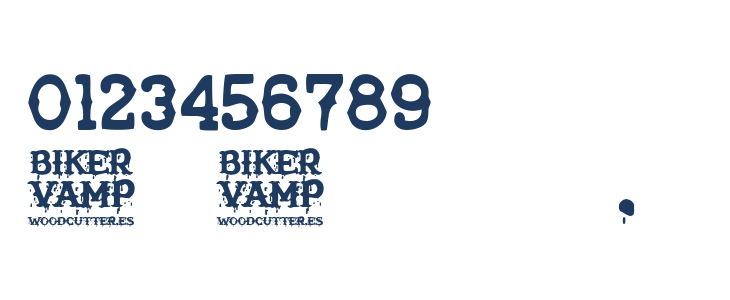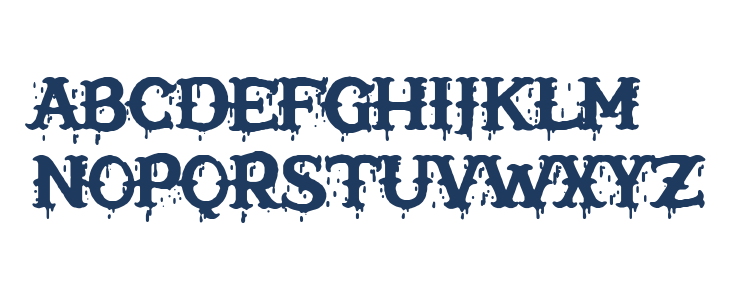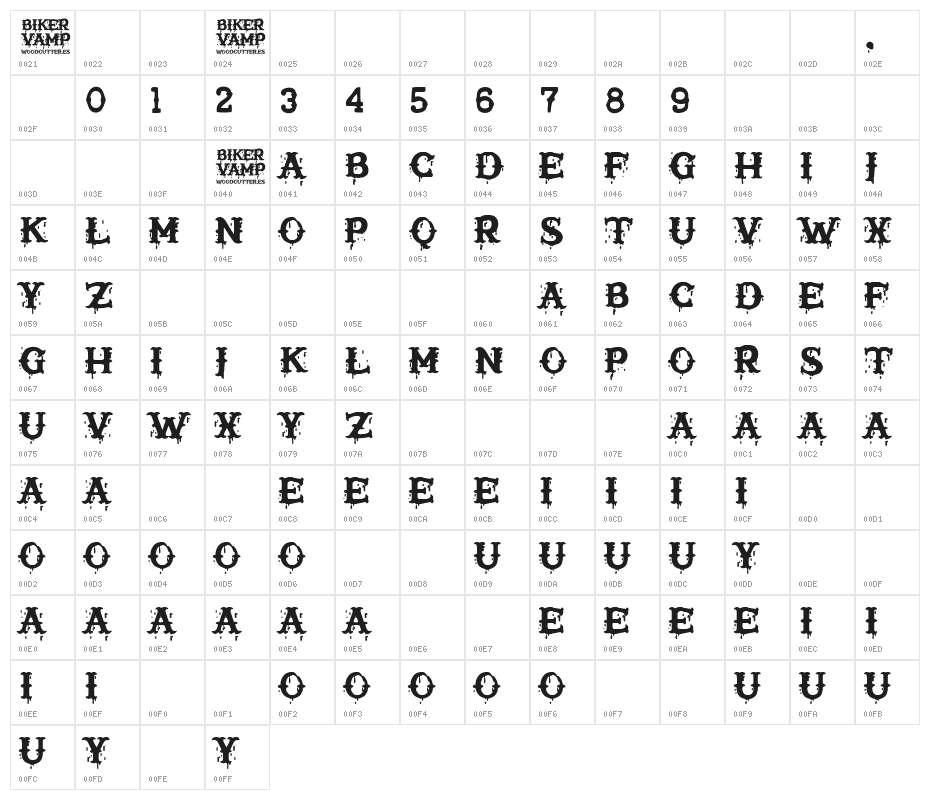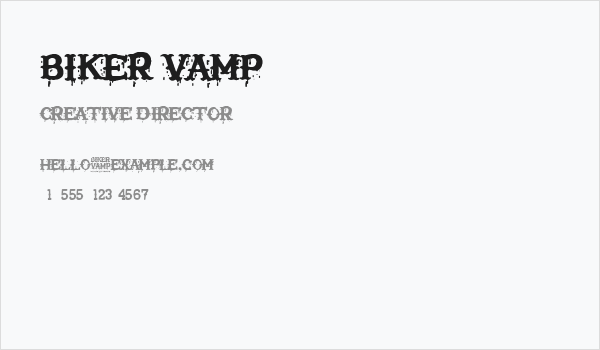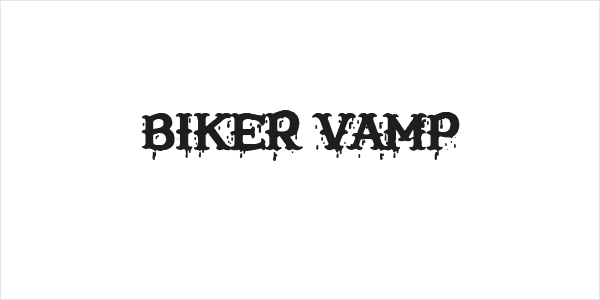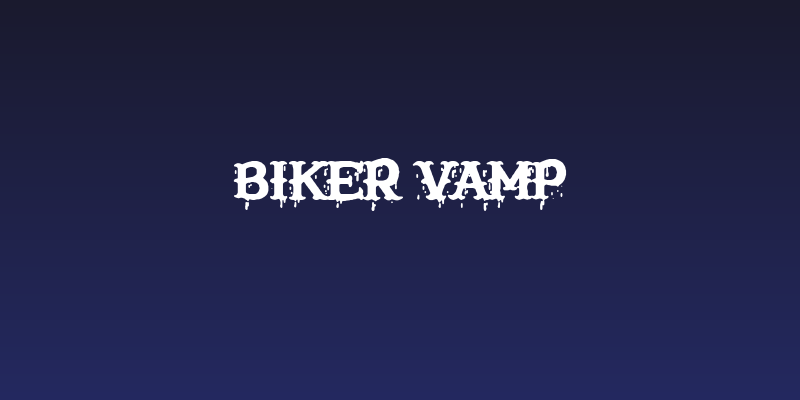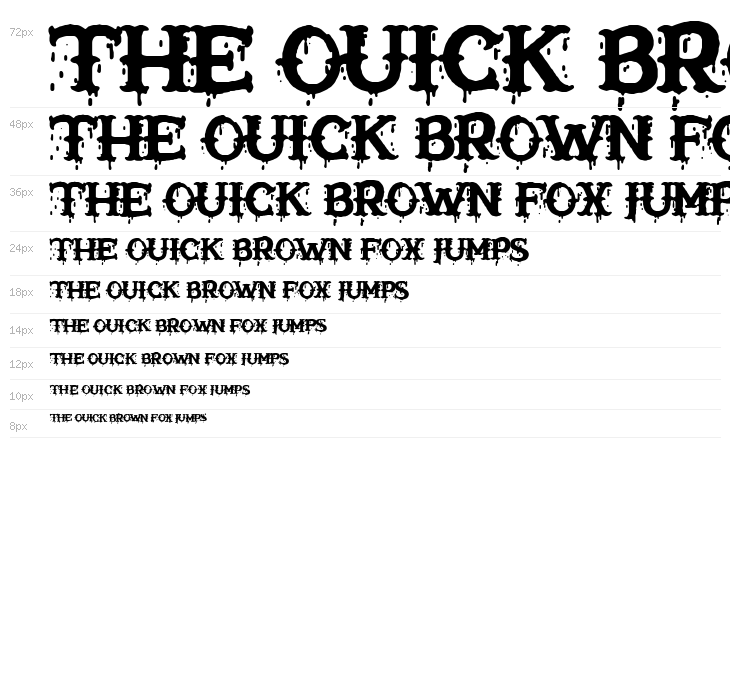
Biker Vamp Font
Biker Vamp Description
A bold, decorative display font with a distressed, dripping effect reminiscent of horror or grunge themes. The characters are uppercase with thick strokes and irregular edges, giving a dramatic and edgy appearance.
| Overall Style | Decorative, Grunge, Horror |
| Proposed Projects | Horror movie posters, Halloween event flyers, band logos, themed party invitations, video game titles. |